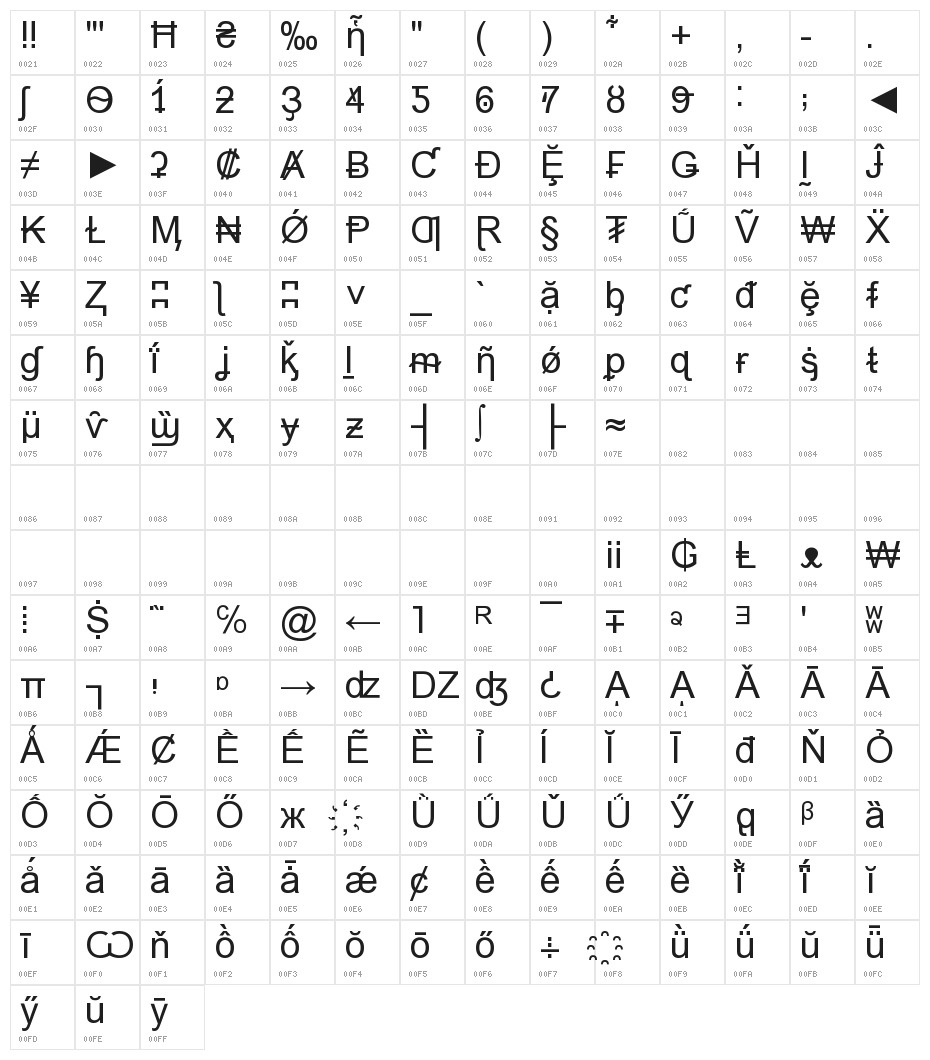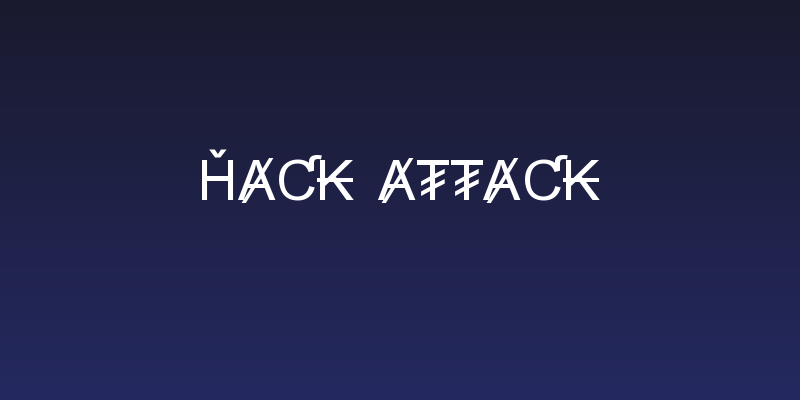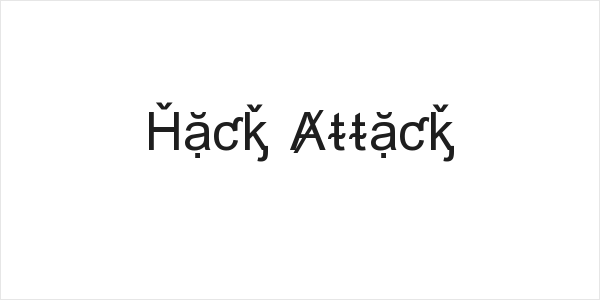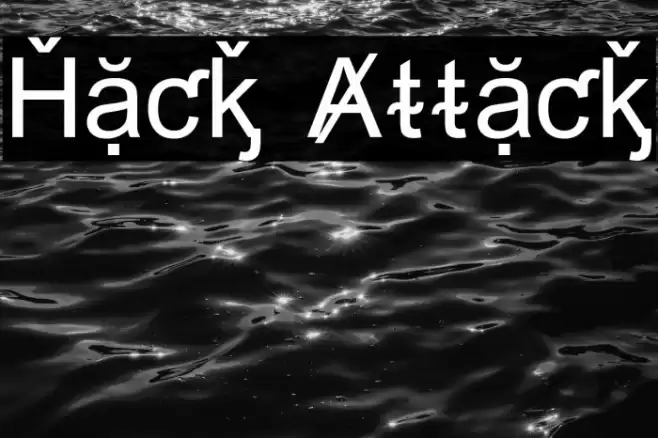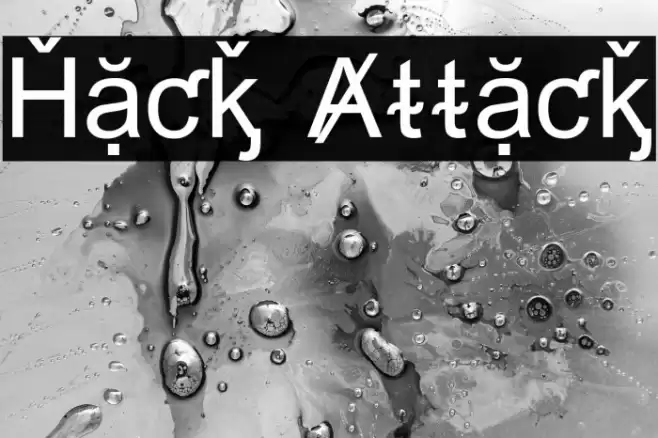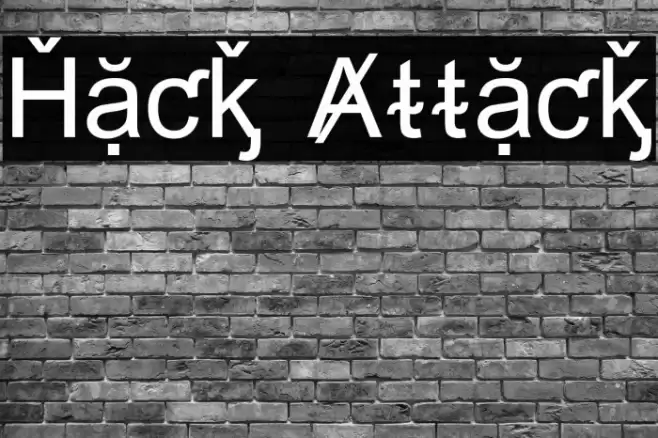
Hack Attack Font
Hack Attack Description
This font features a modern and clean sans-serif style with a geometric structure. The characters are bold and have a uniform stroke width, giving them a strong presence. The uppercase letters are slightly taller than the lowercase, maintaining a consistent and balanced look. The font includes a wide range of accented characters, making it versatile for multilingual use. The numerals are clear and distinct, with a slightly rounded shape that complements the overall design. Special characters are well-integrated, maintaining the font's cohesive appearance.